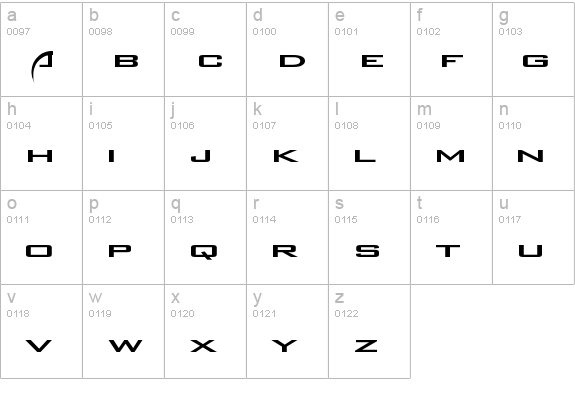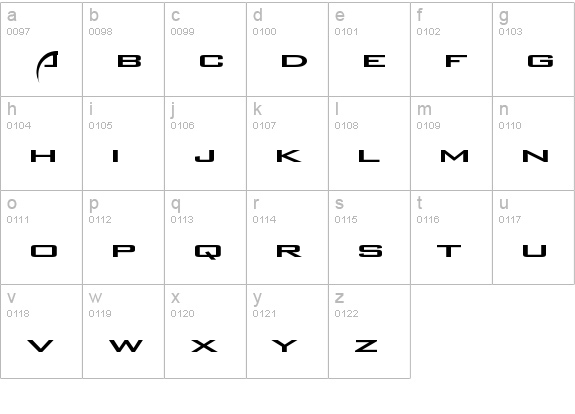
Backslash is a free for personal use font in the Modern > Futuristic category. It has been downloaded 248 times and is available for Windows, Mac and Linux.
Introducing the exquisite Backslash font, a true masterpiece in the world of typography. This font is a harmonious blend of elegance and modernity, crafted with meticulous attention to detail to bring your designs to life. Backslash font boasts a unique and captivating style that effortlessly captures attention. With its clean lines and bold curves, it adds a touch of sophistication to any project, whether it be logos, branding, packaging, or advertising. Its versatility knows no bounds, making it the perfect choice for both digital and print designs. But what sets Backslash font apart is not just its striking visual appeal, but also its accessibility. We are proud to share that Backslash font is freely available to download at FontsMarket.com. Yes, you read that correctly - this remarkable font can be yours without costing a dime. We believe that creativity should be limitless, and by offering Backslash font for free, we aim to empower designers of all levels to create their best work. So why wait? Unleash your creativity and download Backslash font today from FontsMarket.com. Whether you're a seasoned professional or just starting your design journey, this font will undoubtedly elevate your projects to new heights. Don't miss out on this incredible opportunity to add a touch of brilliance to your designs - get Backslash font now and let your imagination run wild.